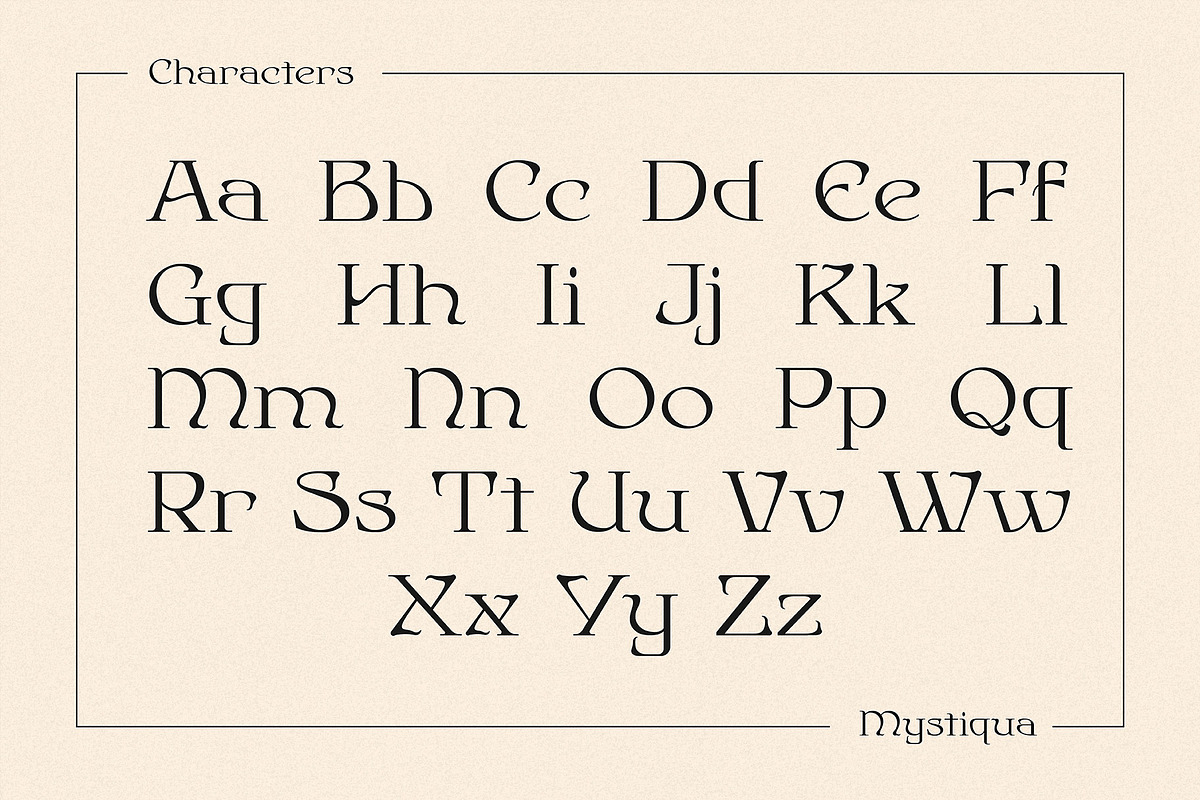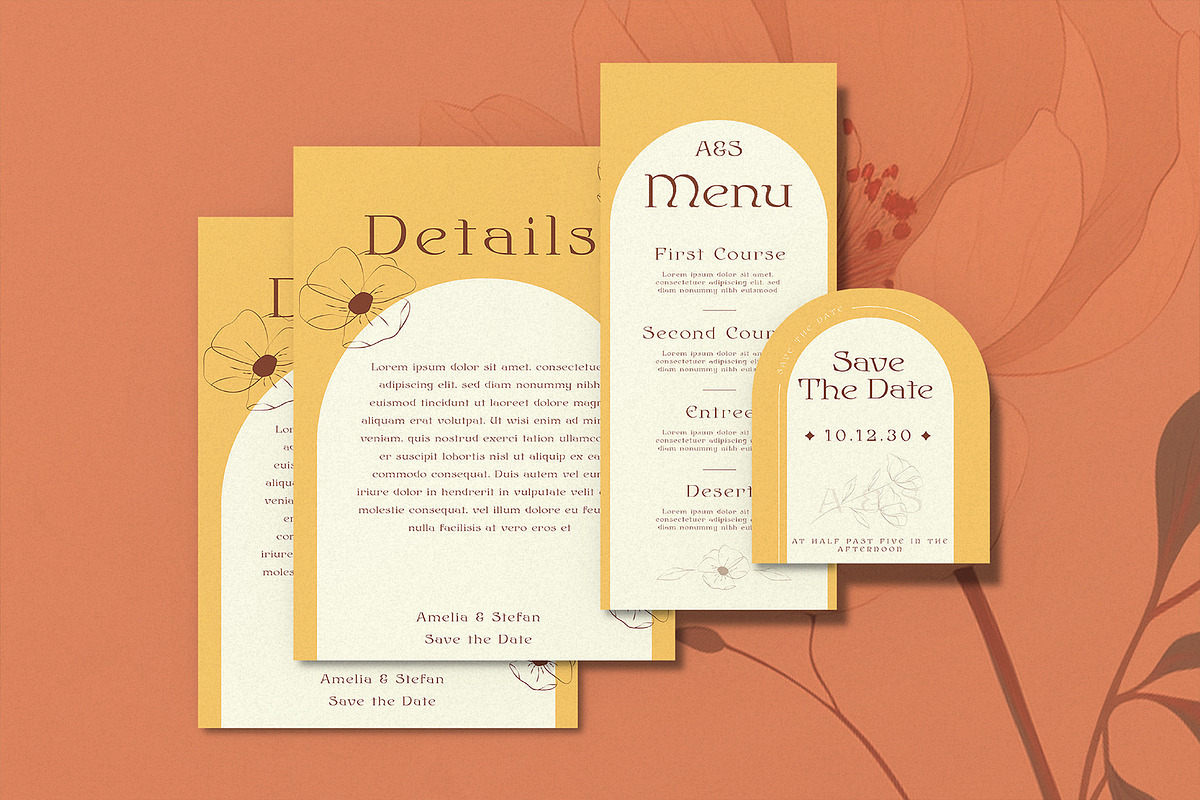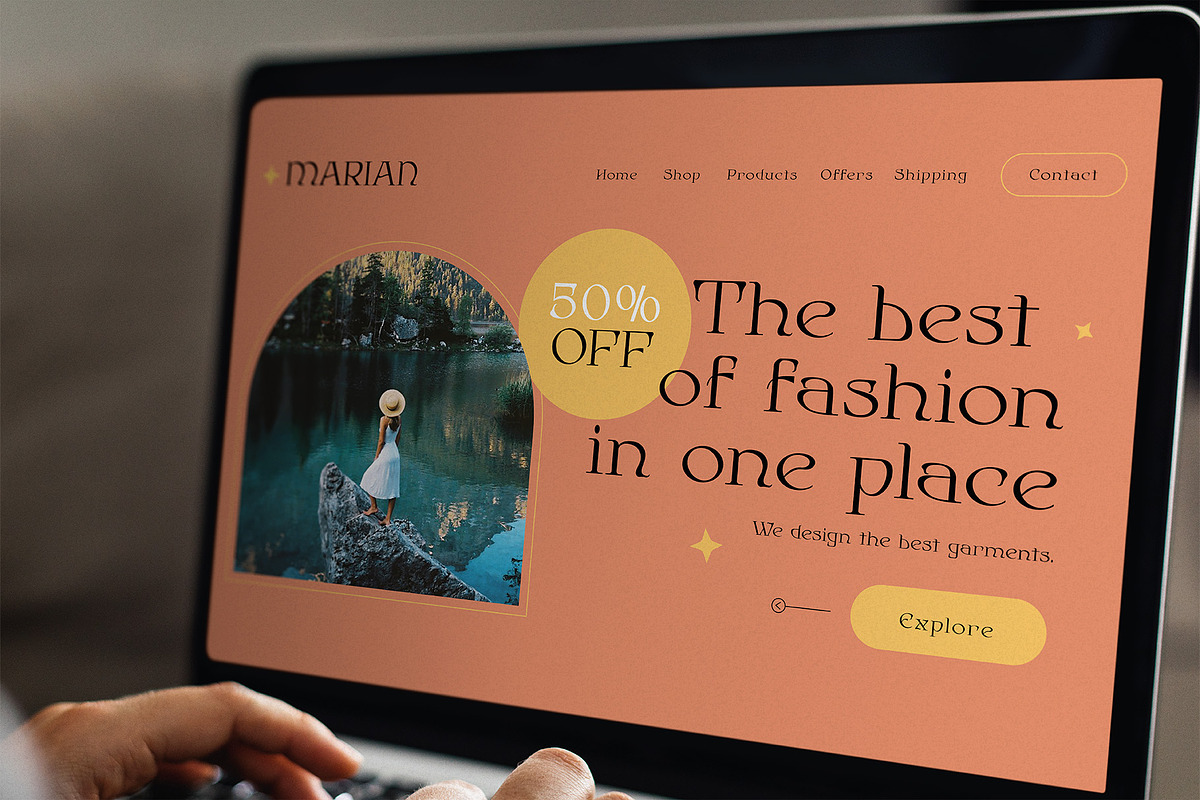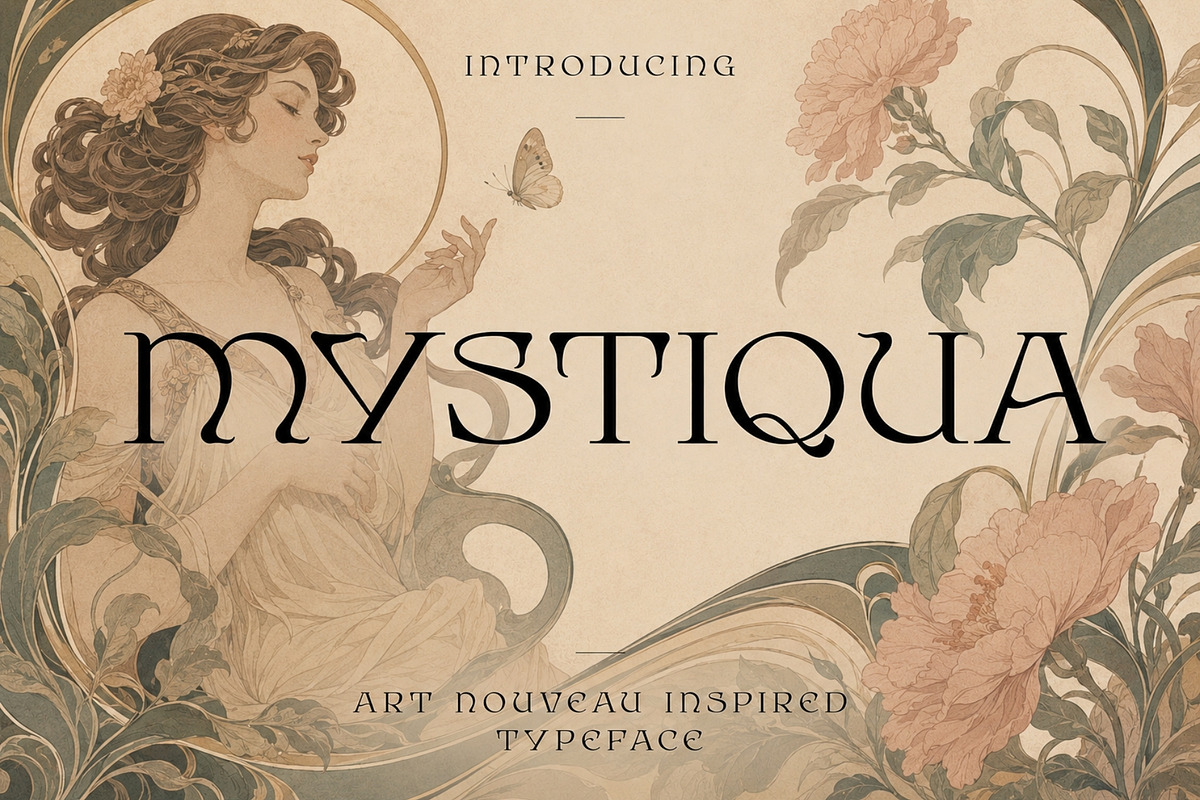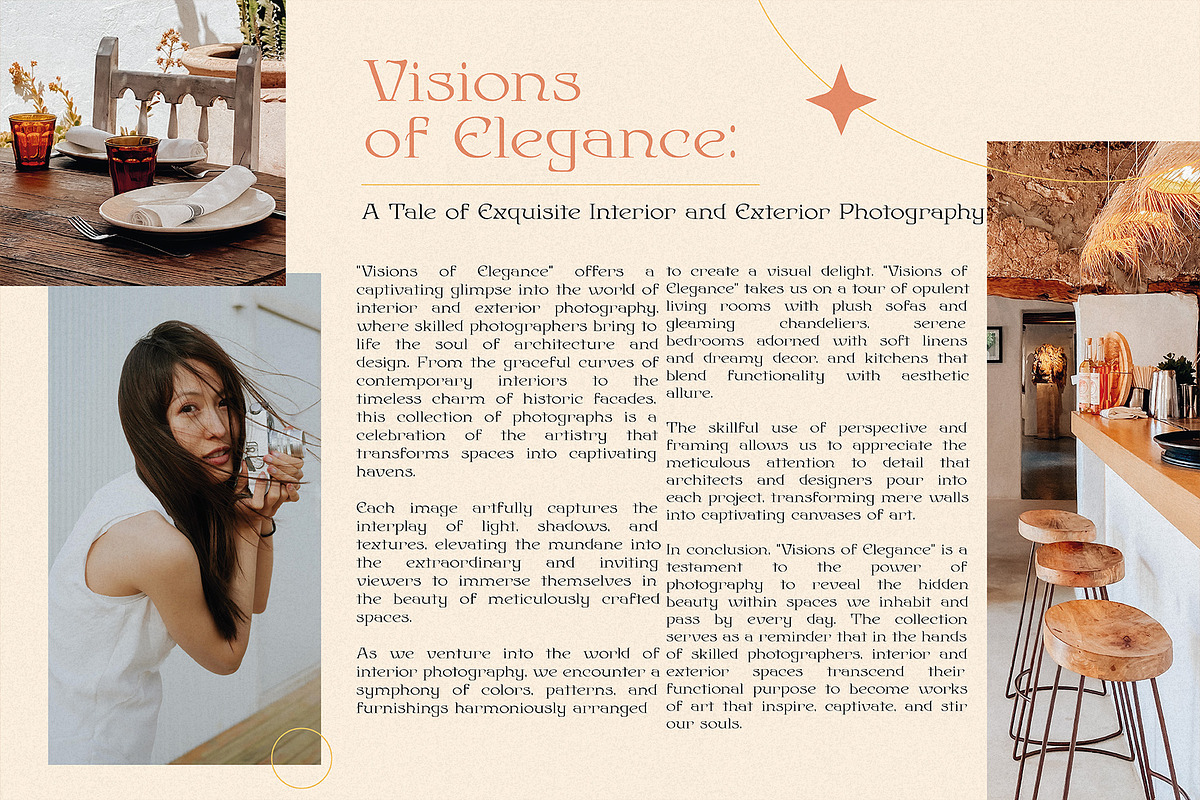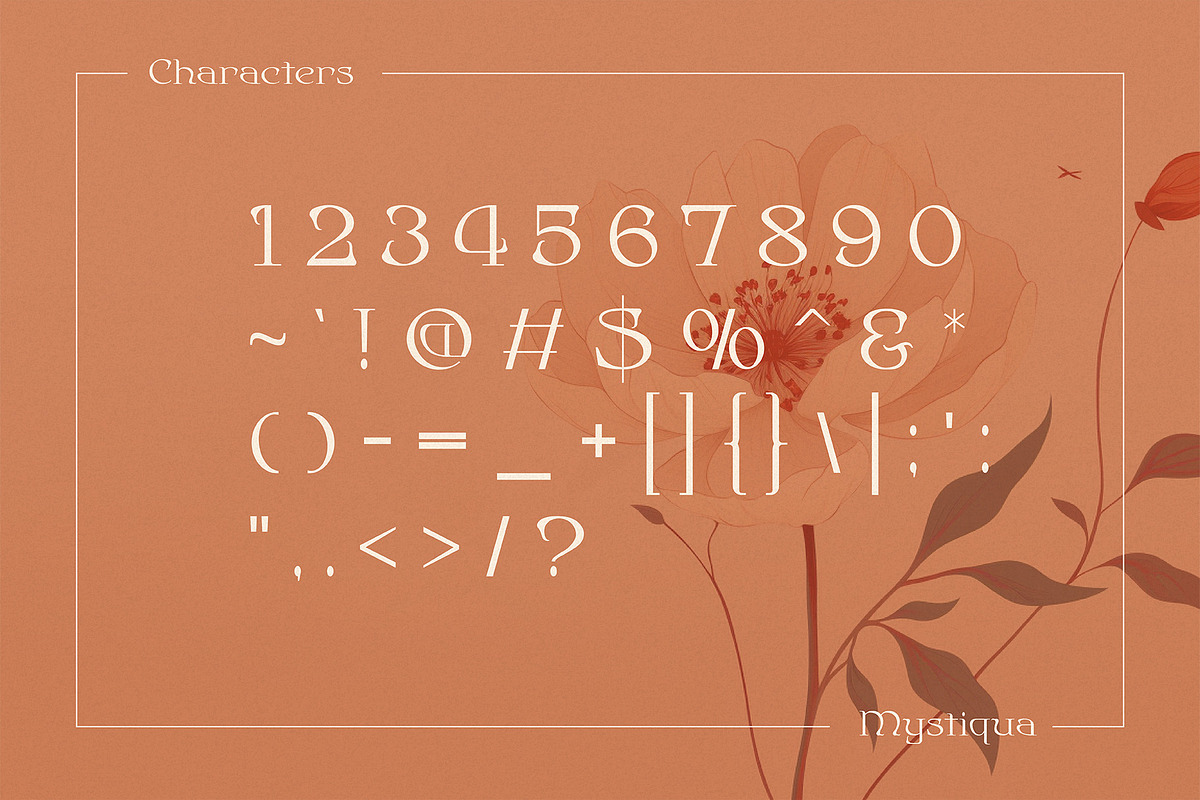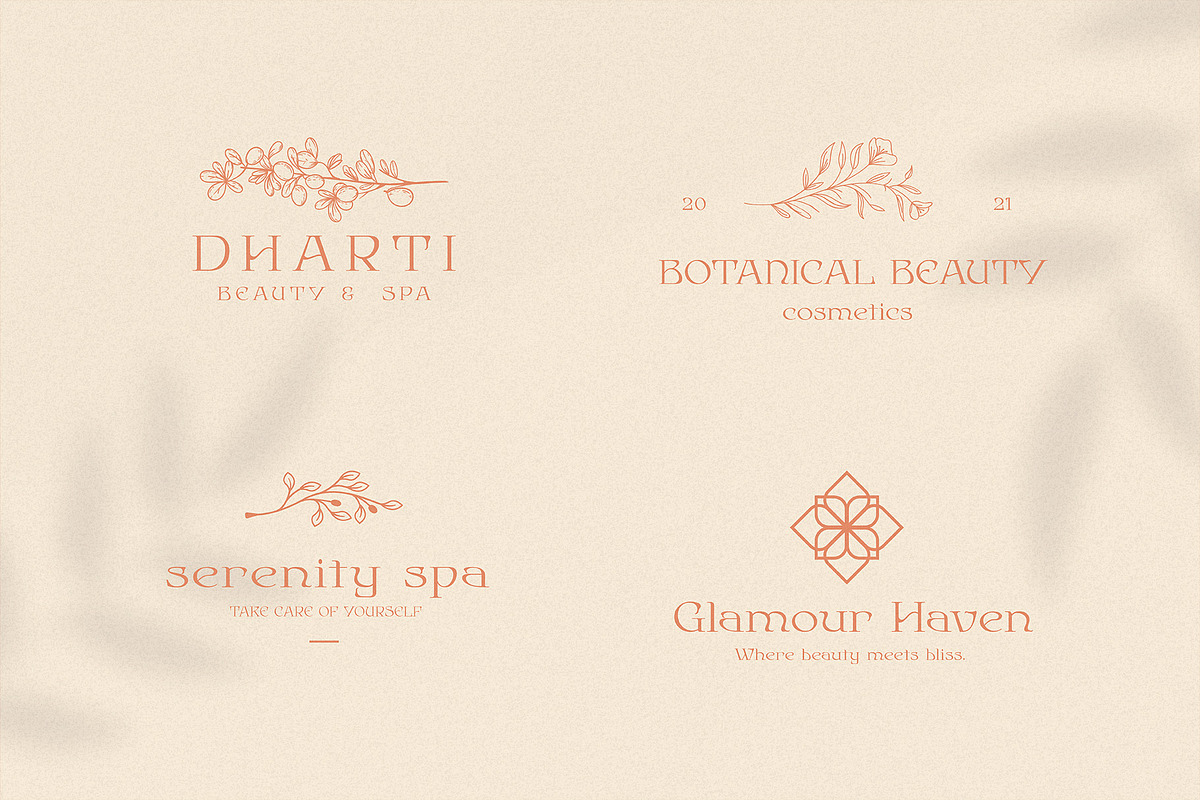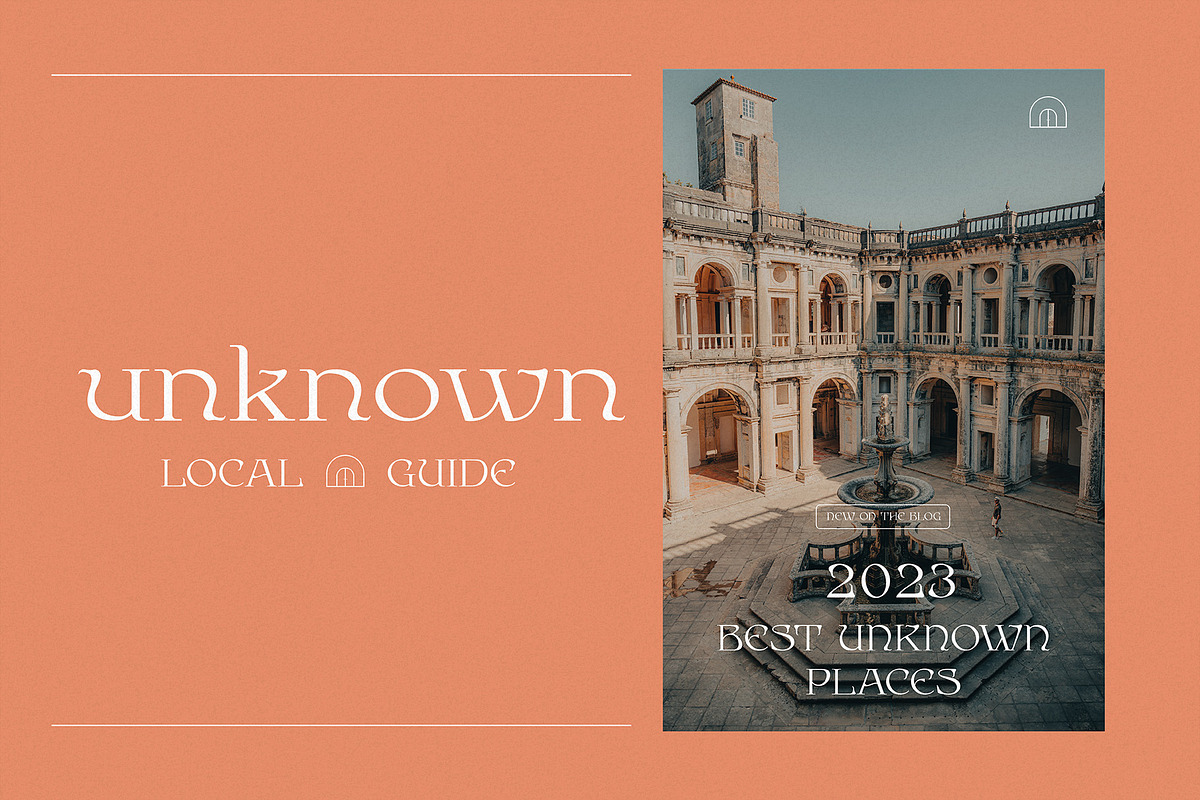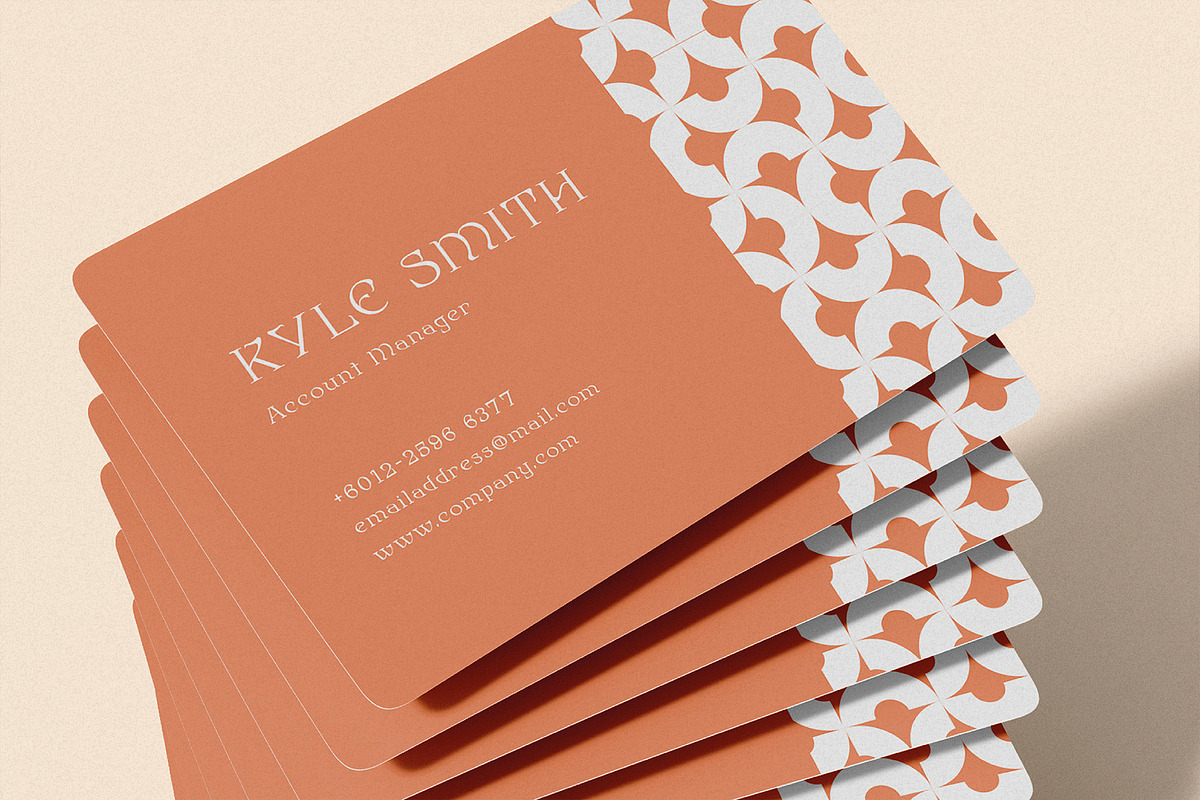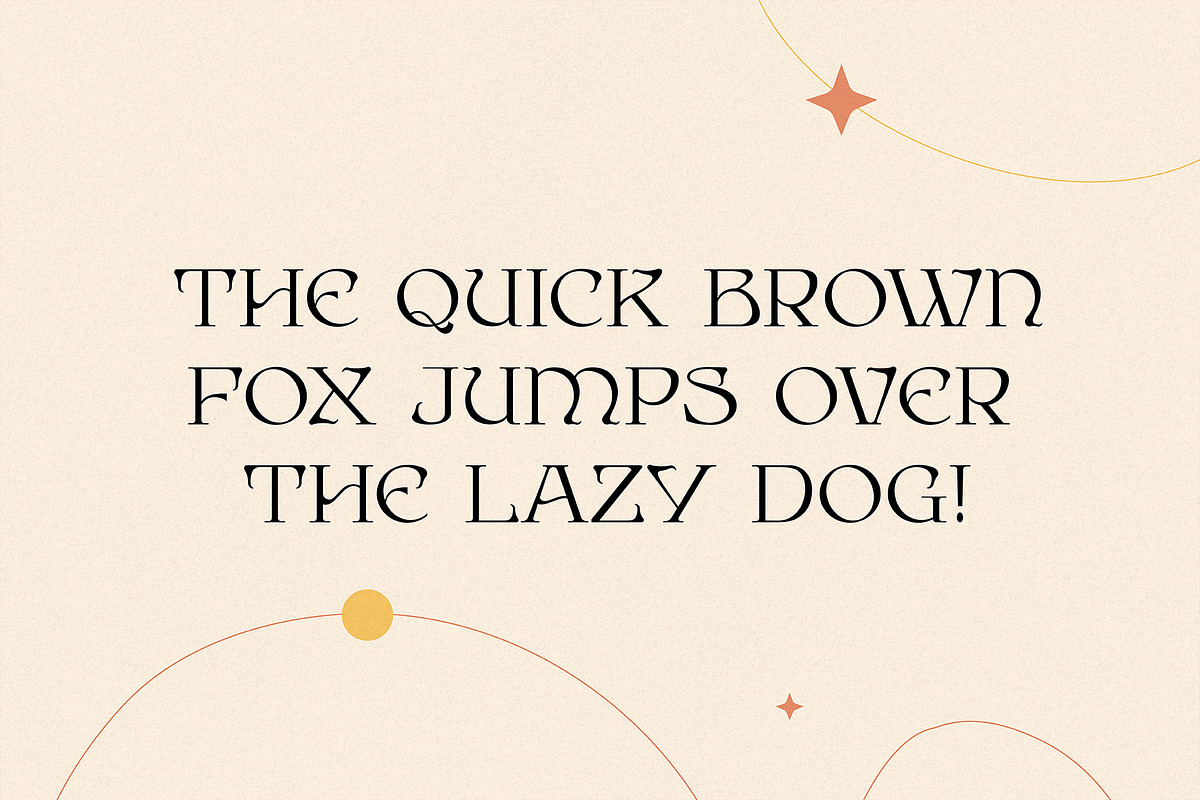
Mystiqua - Art Nouveau Inspired Type
Introducing Mystiqua, a transcendent journey into the age of Art Nouveau where elegance meets the ethereal. This decorative typeface, bathed in the inspirations of an era renowned for its undulating lines and organic forms, captures the very essence of sophistication interwoven with natural beauty.
Every character in Mystiqua is a poetic dance between the delicate and the ornate. Influenced by the sinuous curves and botanical motifs characteristic of Art Nouveau, the typeface flows like liquid art across the canvas, conjuring images of architectural wonders, stained glass masterpieces, and the intricate jewelry of a time gone by.
Mystiqua is not just a font; it's a visual sonnet. Perfect for projects that demand an air of vintage luxury and a touch of otherworldly charm, it stands out in branding, intricate design compositions, invitations, and anywhere you wish to evoke the magic of an era that celebrated the harmony between art and nature.
With Mystiqua, invite the spirit of Art Nouveau into your designs and let every word penned be an ode to beauty, romance, and timeless elegance.